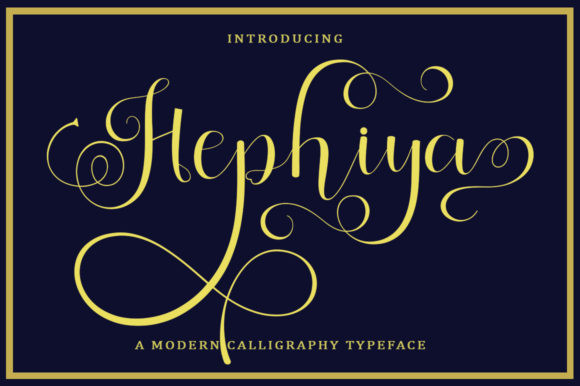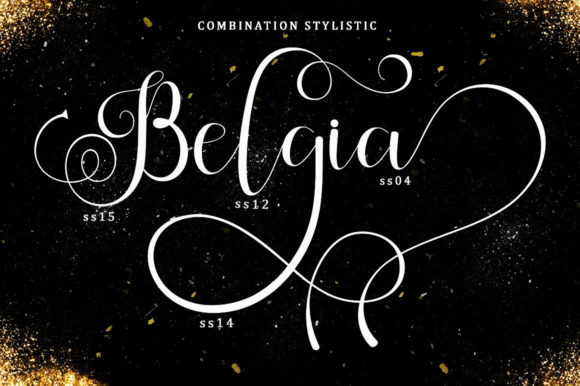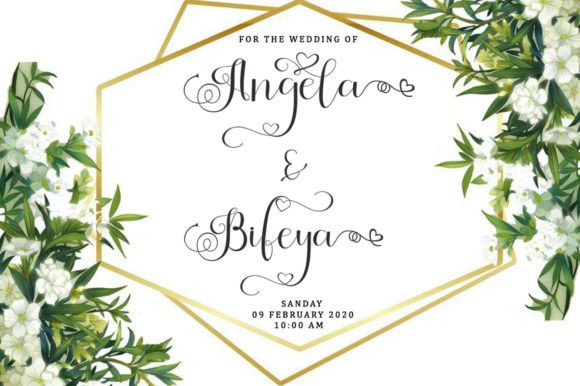
Hephiya Font
Hephiya is a unique font featuring spontaneous and rich swashes. It feels both elegant and classy and will work best in any design project.